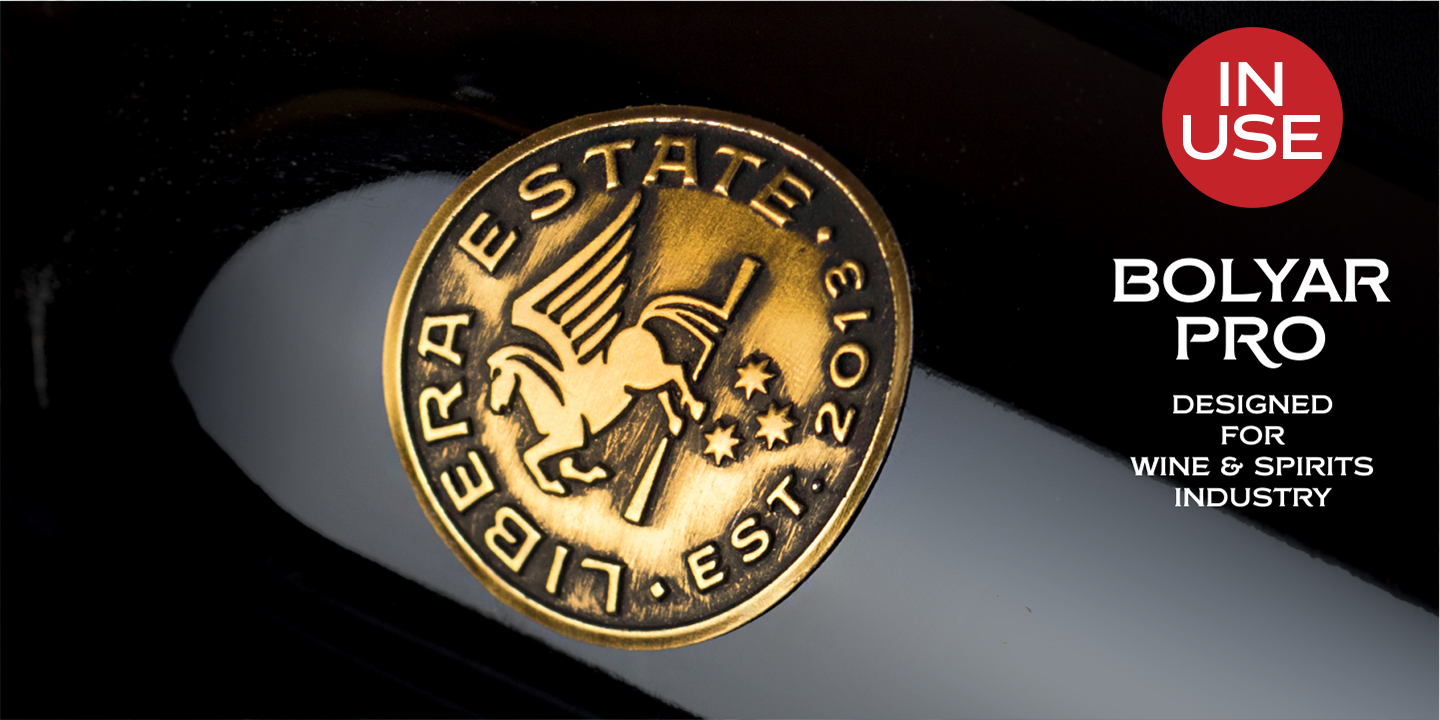
FM Bolyar Pro Font is ideal for professional corporate branding, law firm logos, financial institution materials, government agency documents, academic publication headers, executive business cards, international conference signage, and formal presentation designs. This distinguished typeface works perfectly in diplomatic correspondence, high-end consulting firms, prestigious university materials, and sophisticated multinational corporation communications.
What makes FM Bolyar Pro Font exciting is its professional authority and international sophistication that captures the essence of global business excellence and institutional credibility. The font features precise letterforms, balanced proportions, and refined spacing that conveys trustworthiness and professional competence. Its authoritative character and multilingual support make every word feel backed by institutional expertise and international standards.
FM Bolyar Pro Font family includes comprehensive professional styles: Regular, Bold, Light, Medium, Black, and Italic variations, plus extended character sets supporting multiple languages. Each style maintains the font's signature professional authority while providing designers with complete typographic flexibility for creating global brand identities and multilingual corporate communications.
International organizations choose FM Bolyar Pro Font Free Download for projects requiring professional credibility and global appeal. The font's versatility makes it suitable for both digital corporate applications and traditional formal documents, ensuring authoritative results across executive presentations, legal documentation, and international business communications.